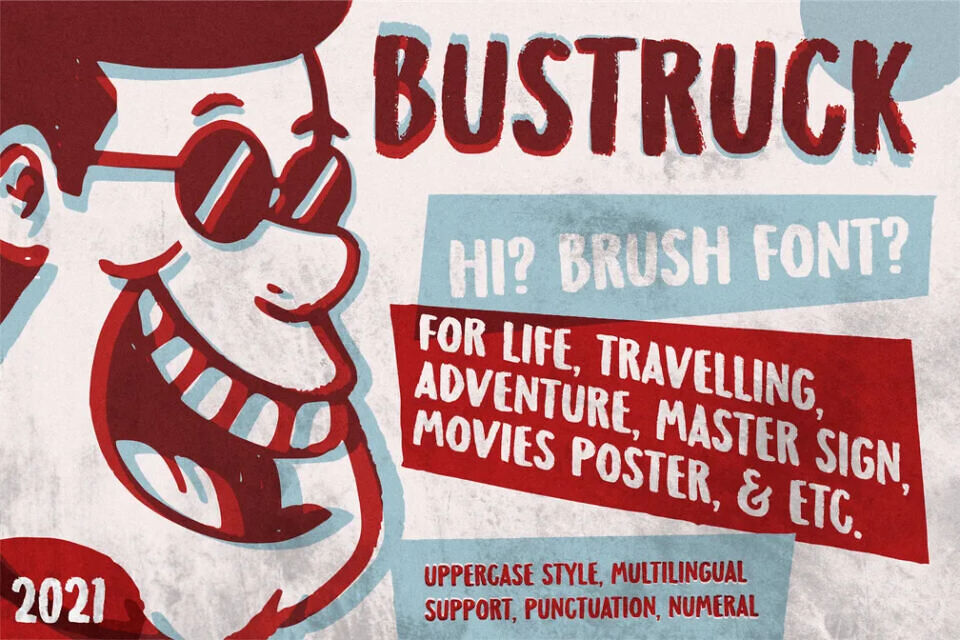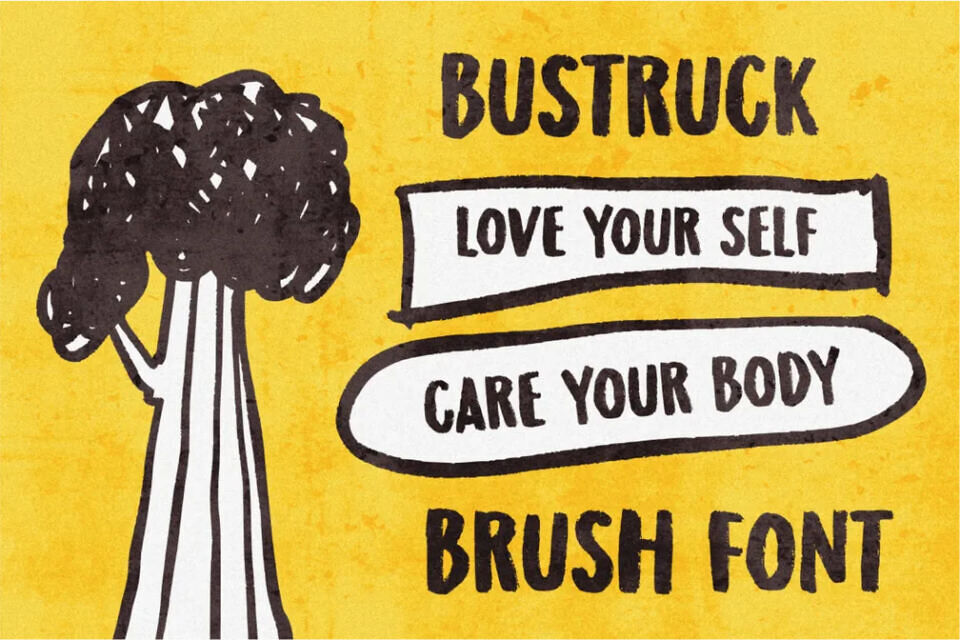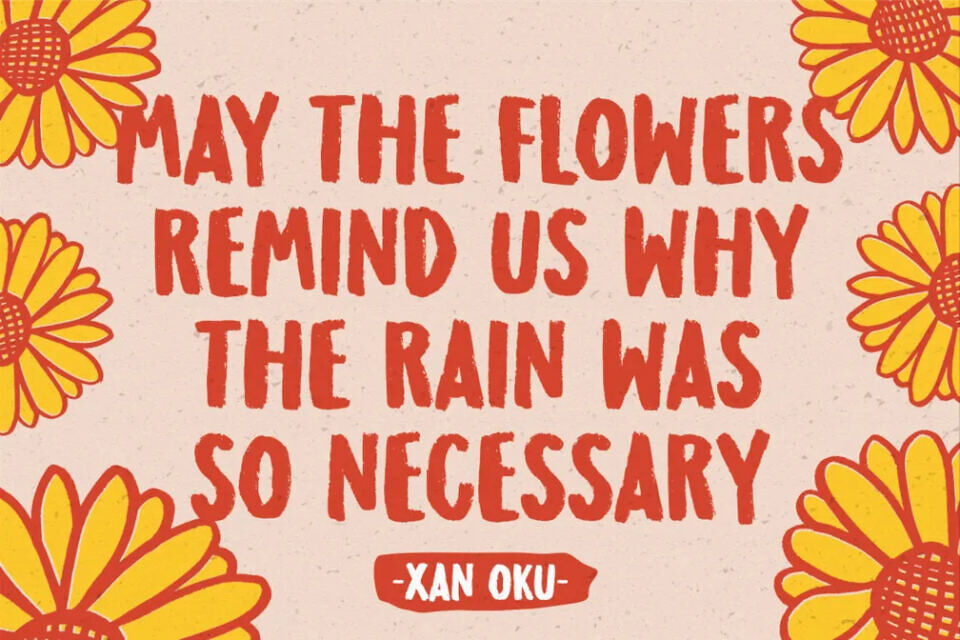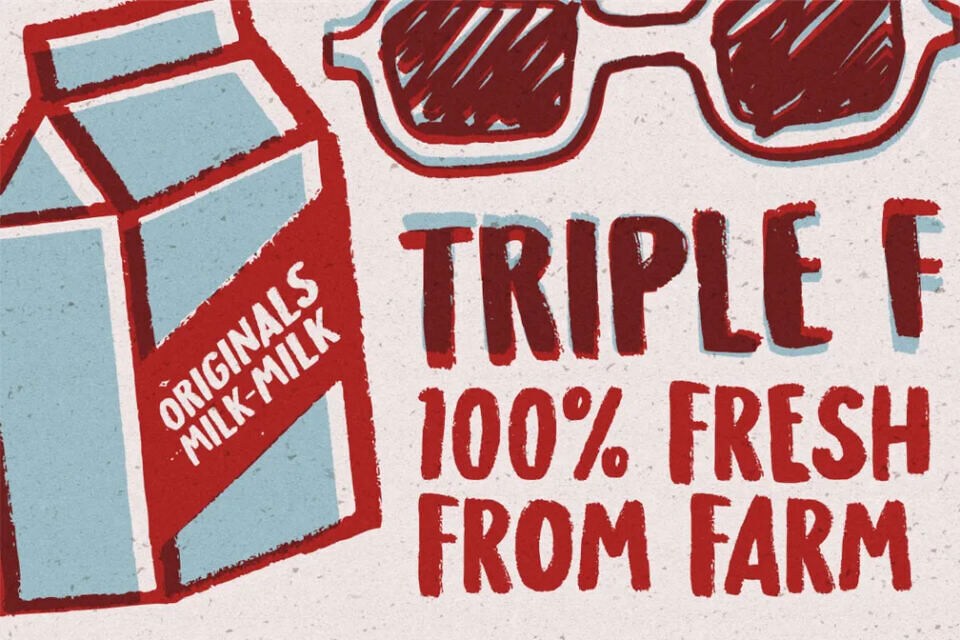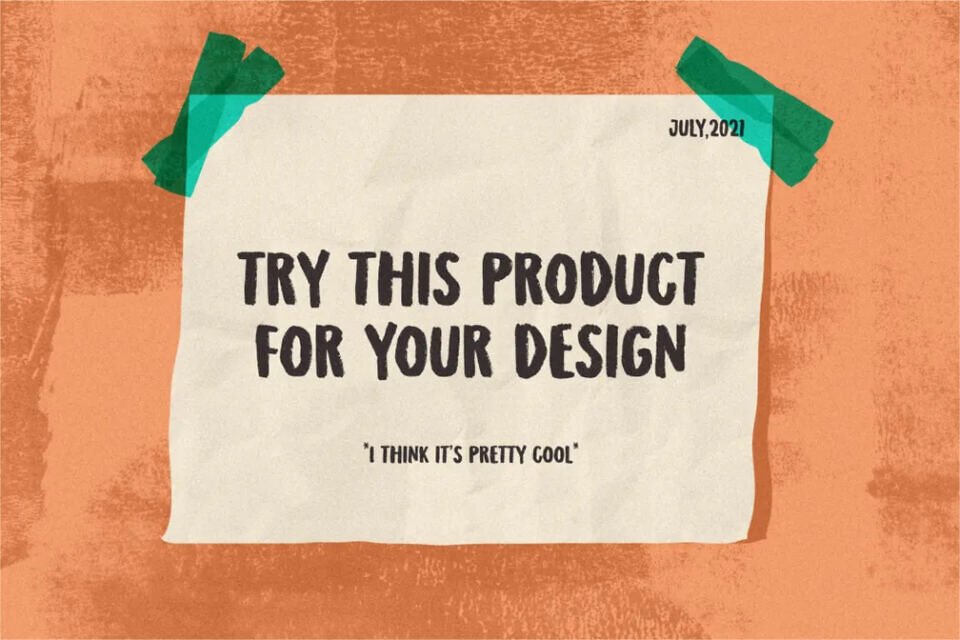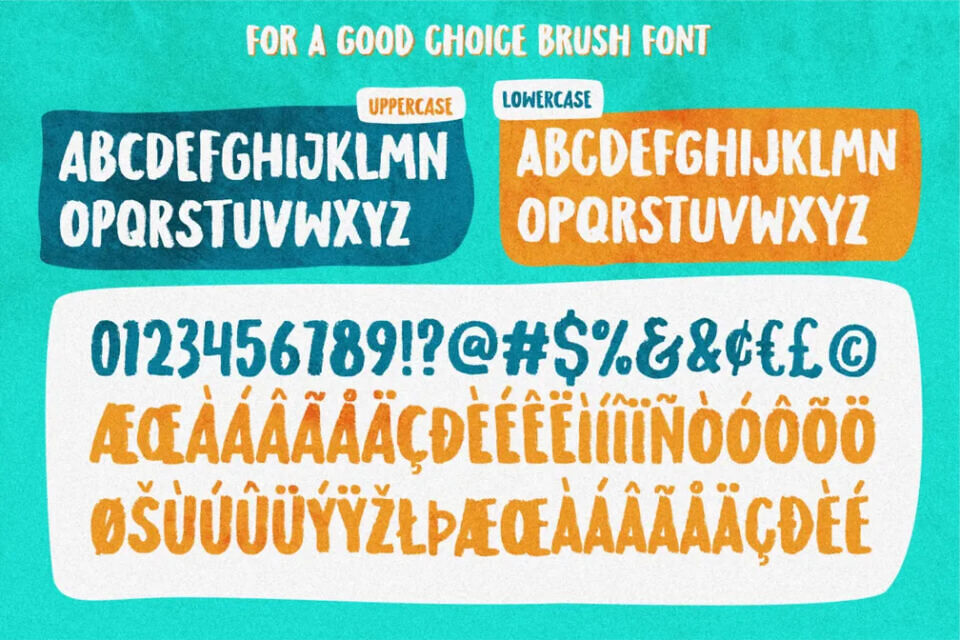
The “Bustruck” font is a unique, hand-crafted design created with ink and brushstrokes. Its distinctive look makes it ideal for various applications, including logos, quotes, posters, packaging, labels, movie and TV titles, and billboards.